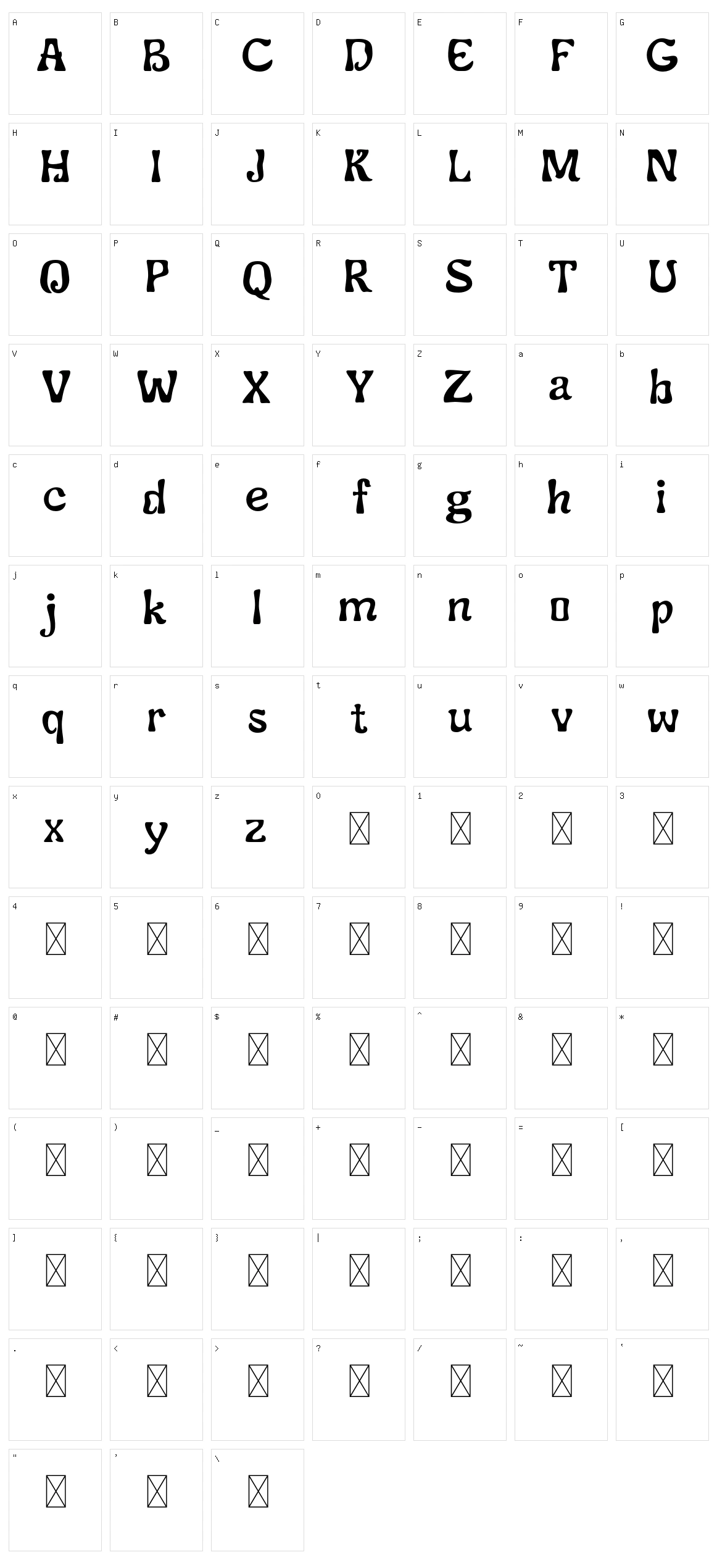
The free font Funkley is carefully designed by Craft Supply Co., showcasing a thoughtful balance of creativity and usability and falls under the Groovy font style. When you download the ZIP file, it contains only 4672.59 KB of font files, making it lightweight and quick to download. Please review the license details below to understand permitted usage and distribution rights. If license information is not available, we recommend using this font for personal projects only or contacting the author directly for commercial usage permissions.